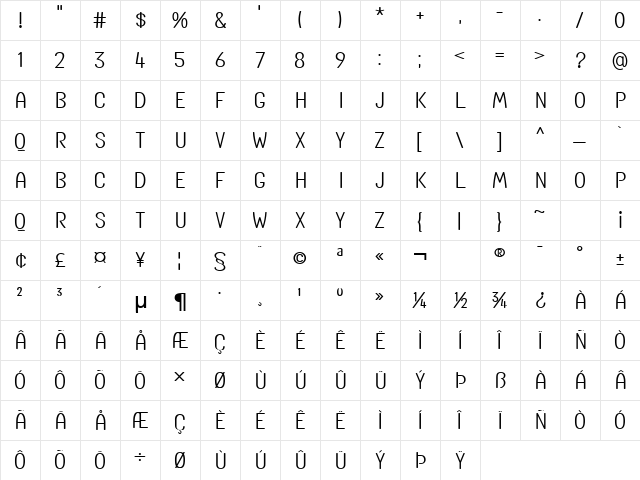
Instant Noodle Regular
Design Context for Instant Noodle Typeface
Instant Noodle is a composed and adaptable typeface that performs quietly and consistently across a wide range of design contexts.